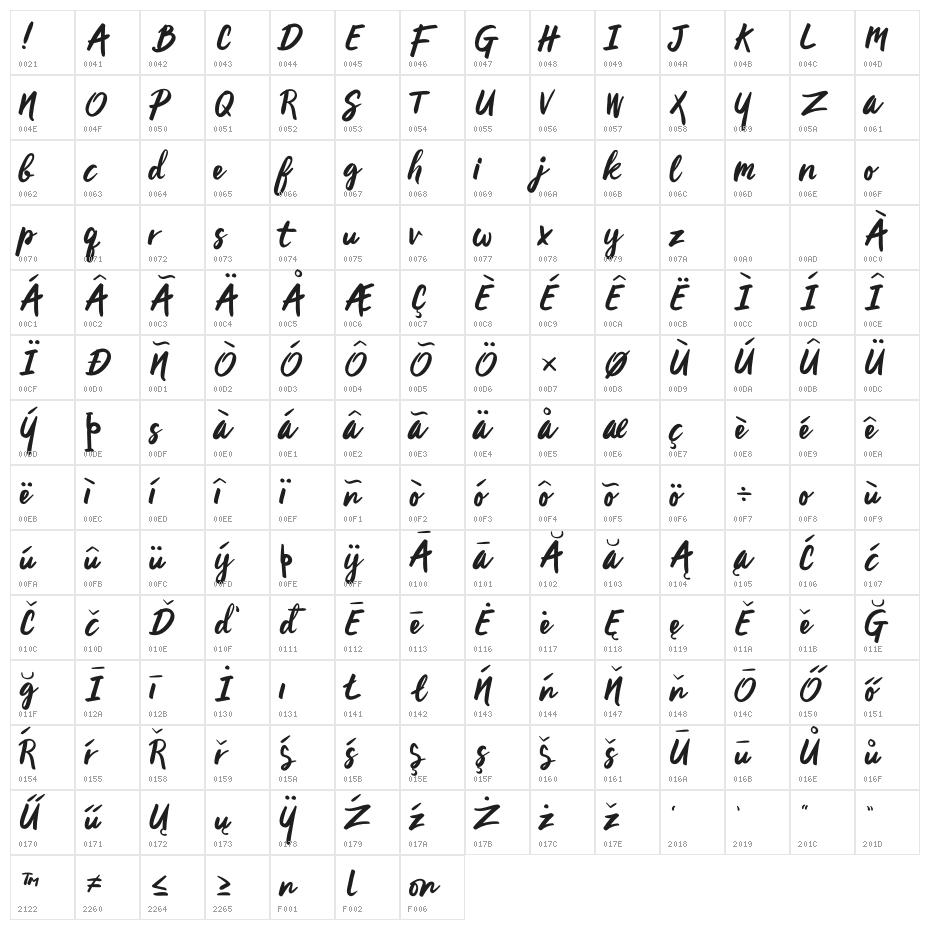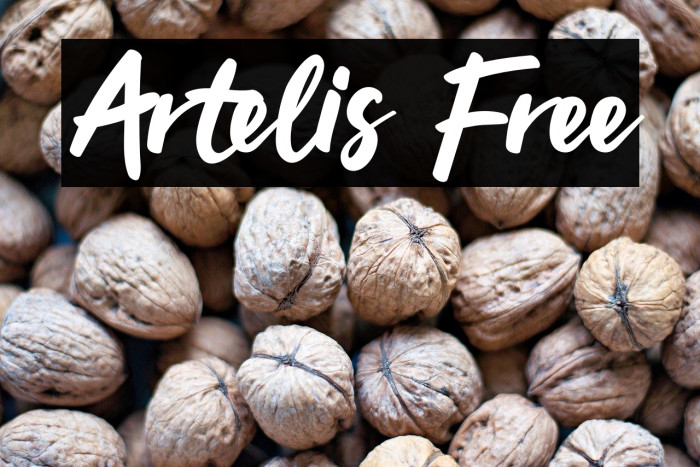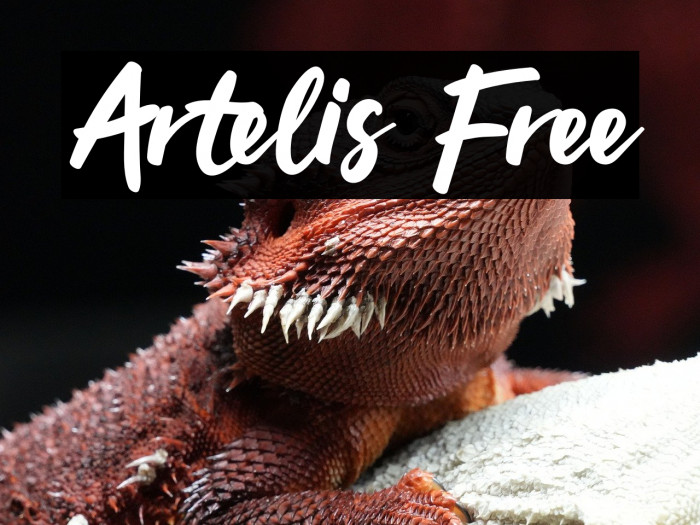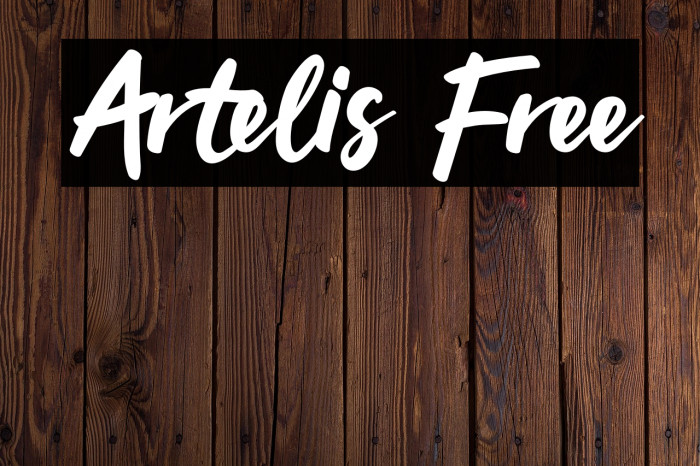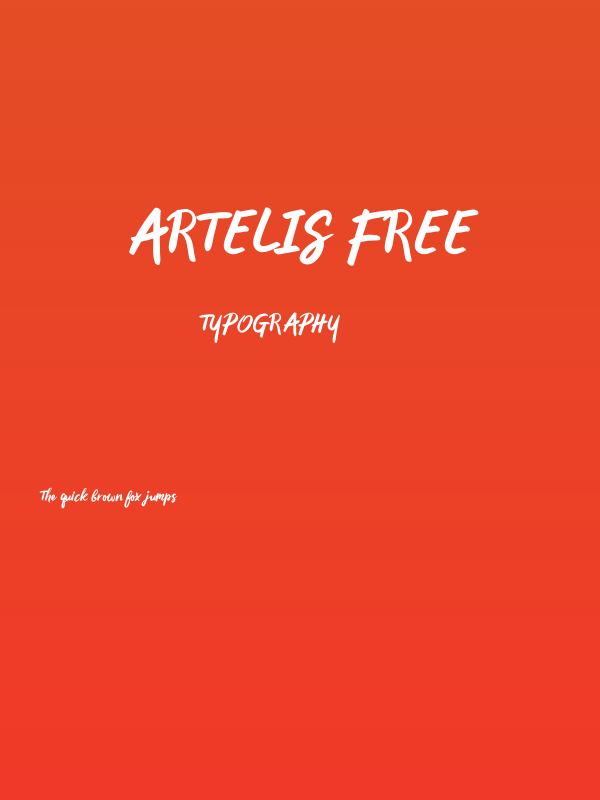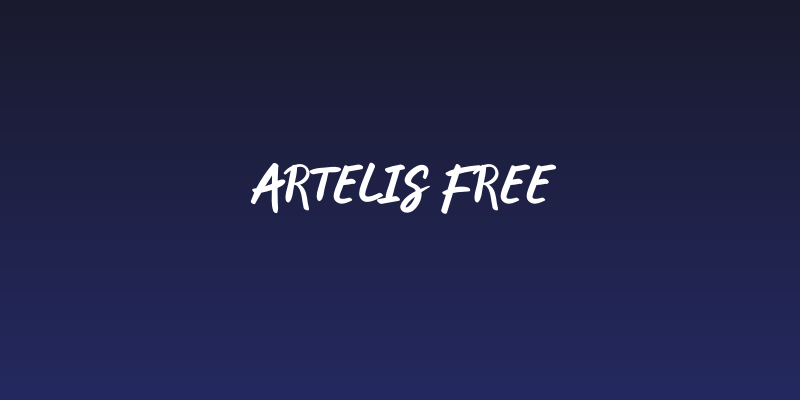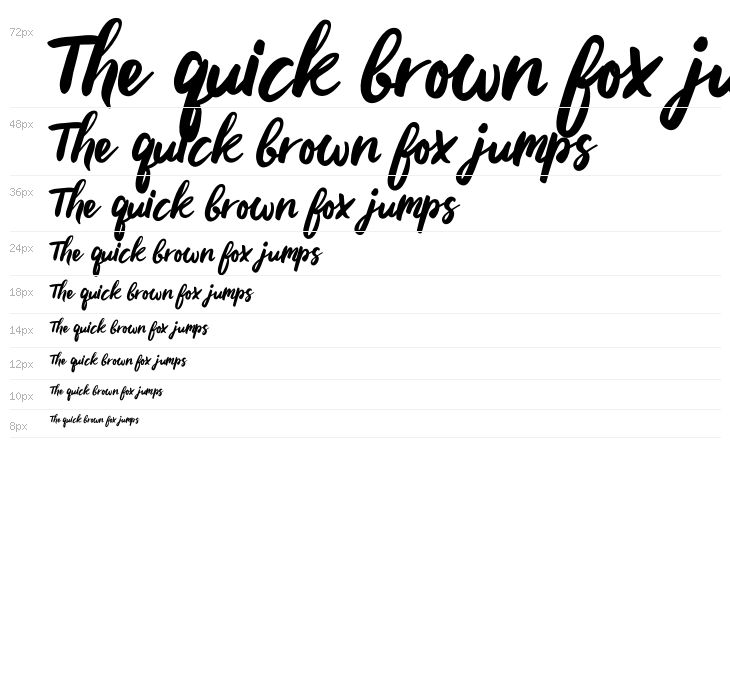
Artelis Free Font
Artelis Free Description
This font features a dynamic and energetic script style, characterized by its bold, flowing strokes and a sense of movement. The uppercase letters are slightly slanted, giving a casual yet sophisticated look, while the lowercase letters maintain a consistent rhythm with smooth curves and loops. The overall appearance is lively and expressive, making it suitable for creative and informal applications. The font's boldness ensures readability, and its unique style adds a personal touch to any design.
| Proposed Projects | Ideal for branding projects, invitations, greeting cards, and creative posters. |